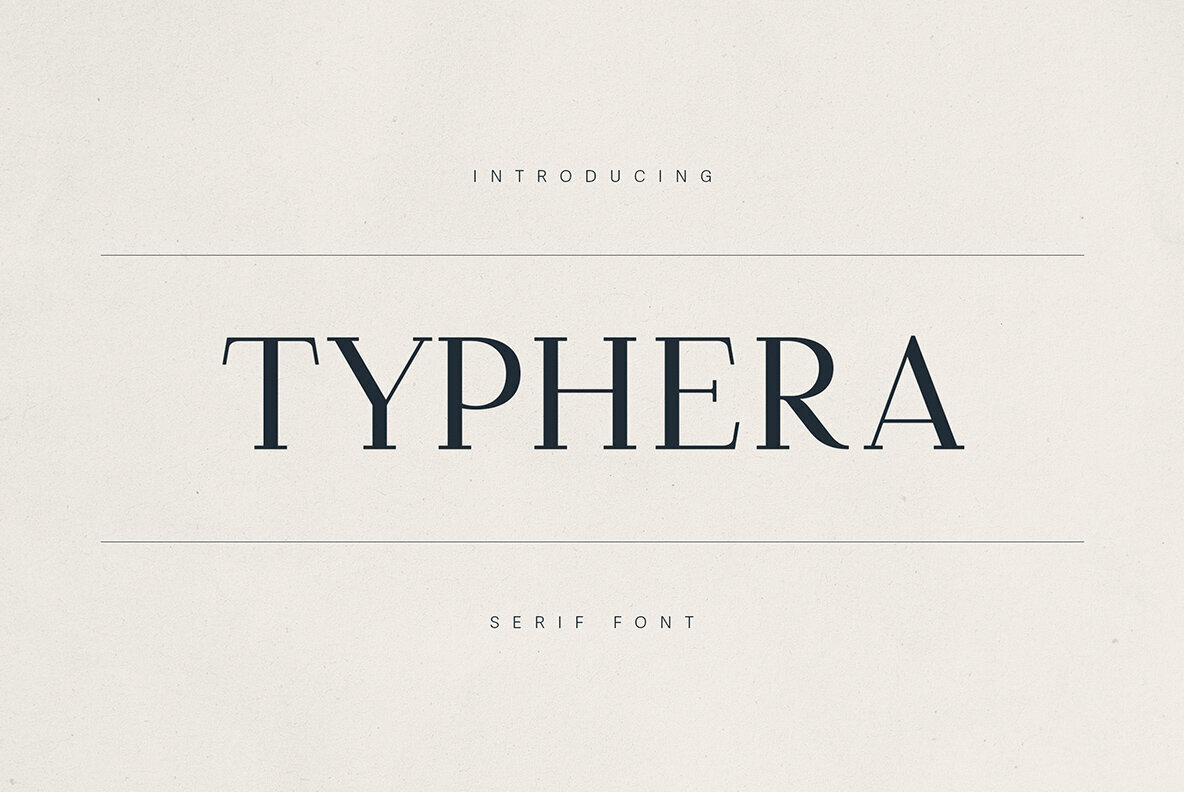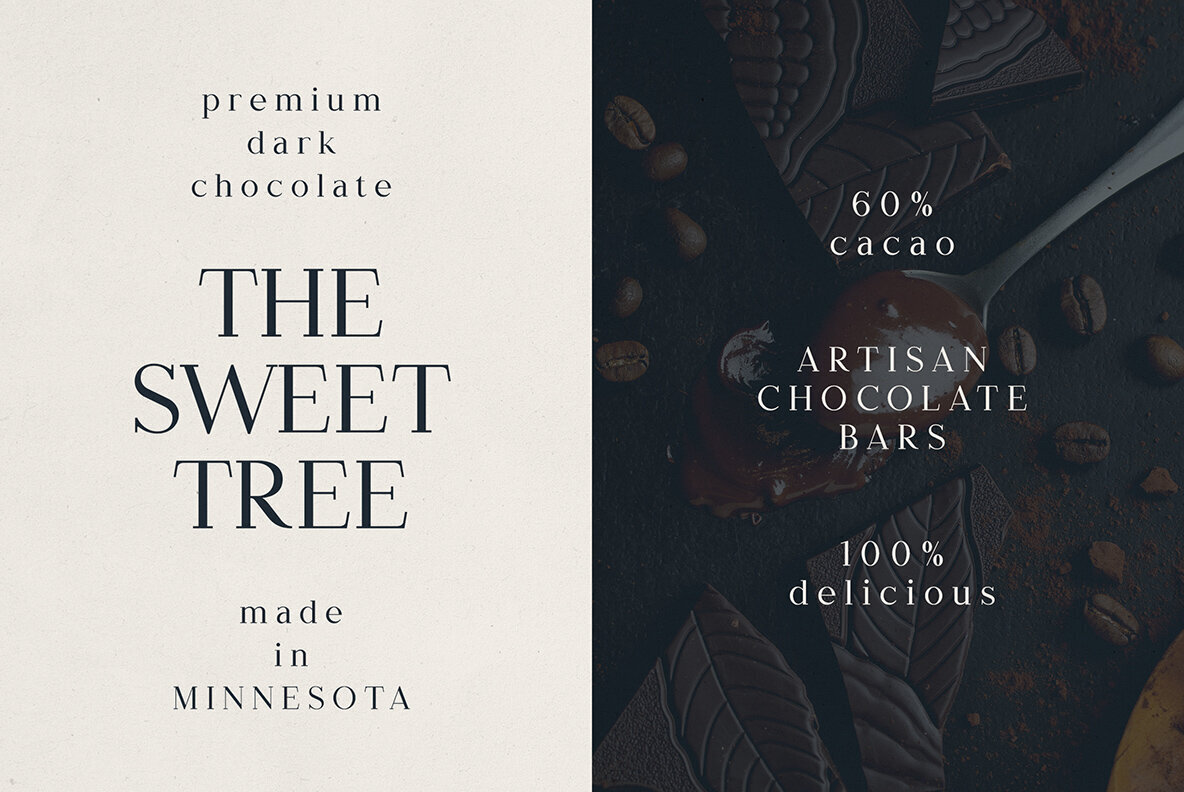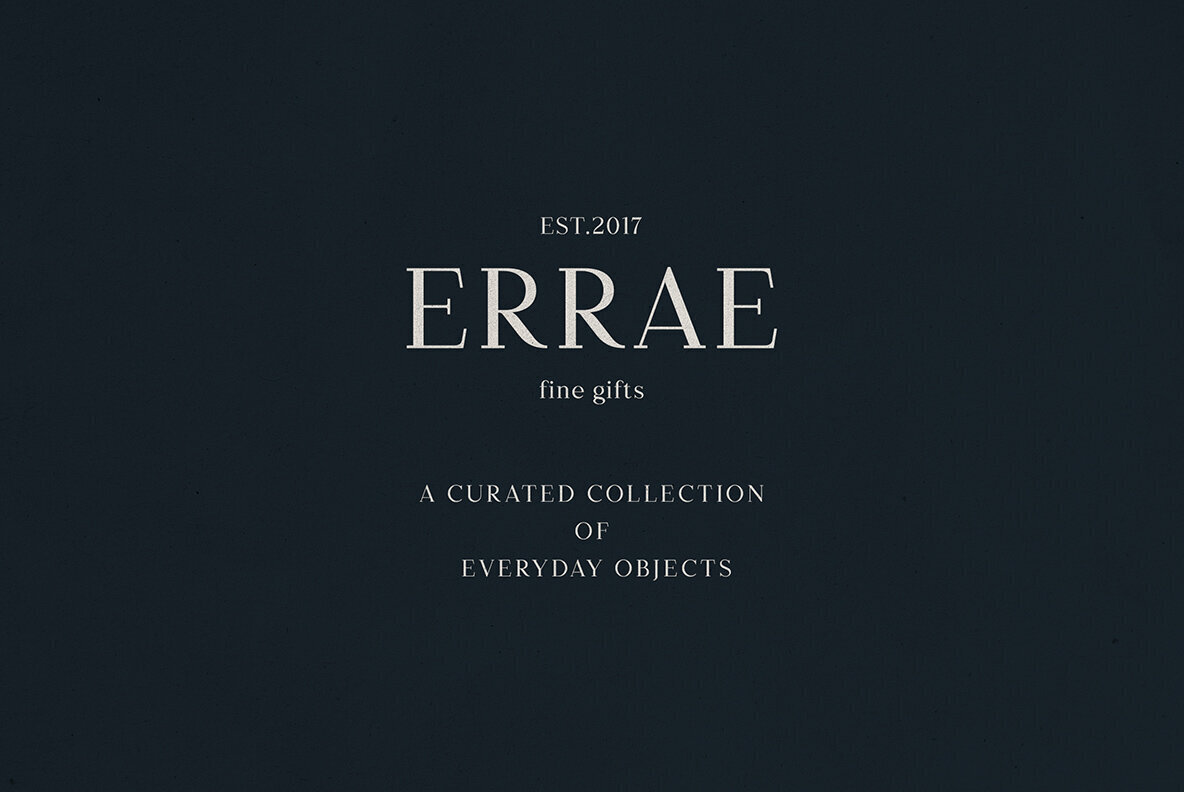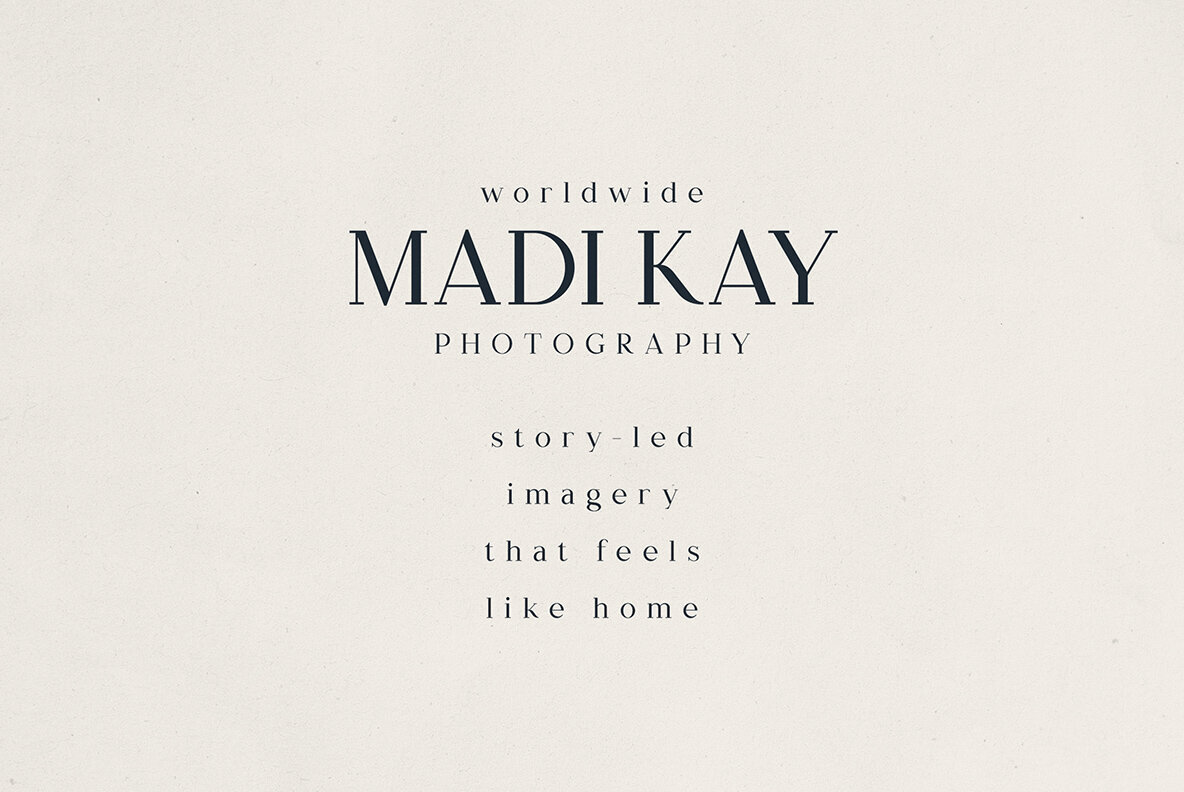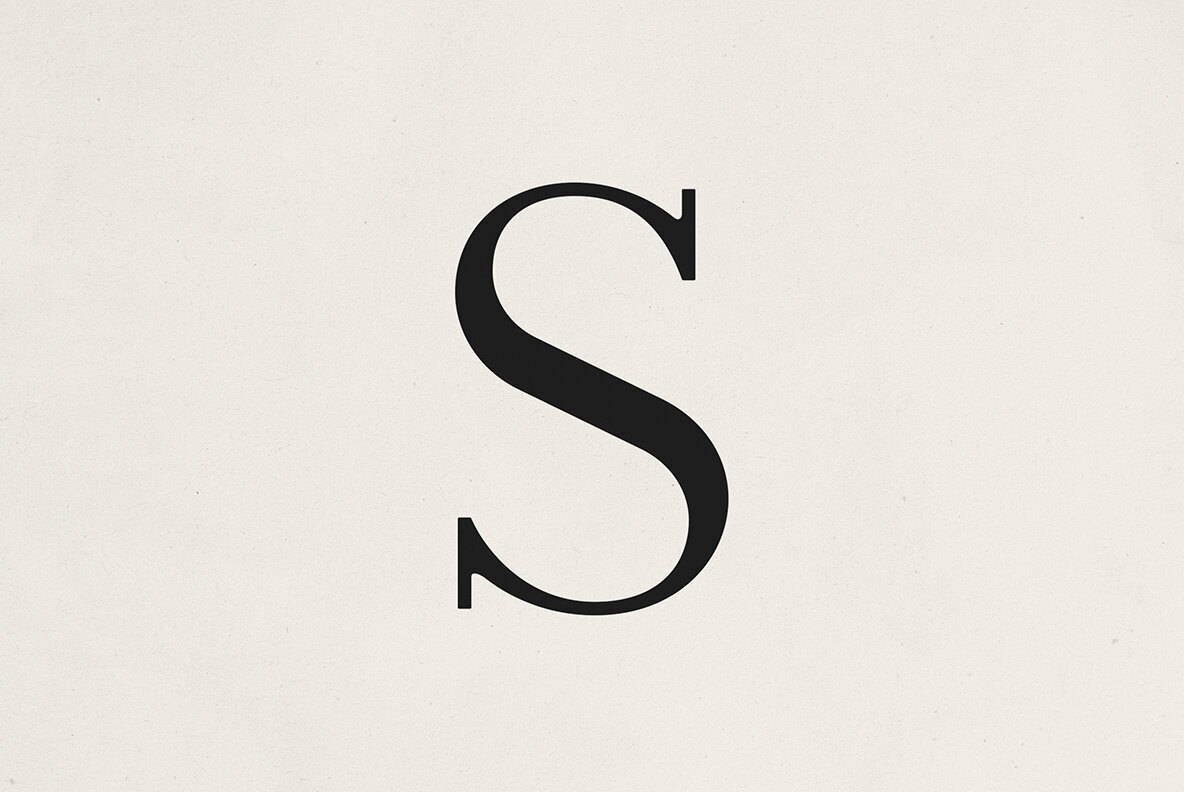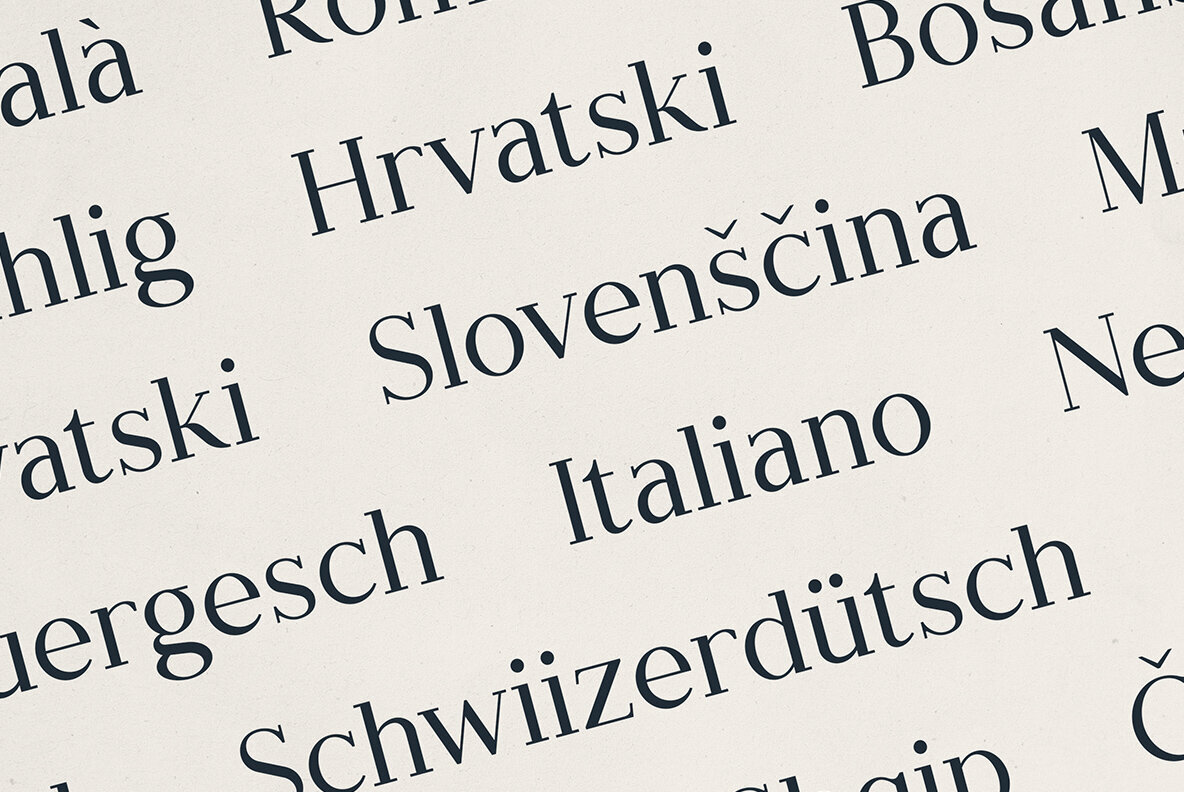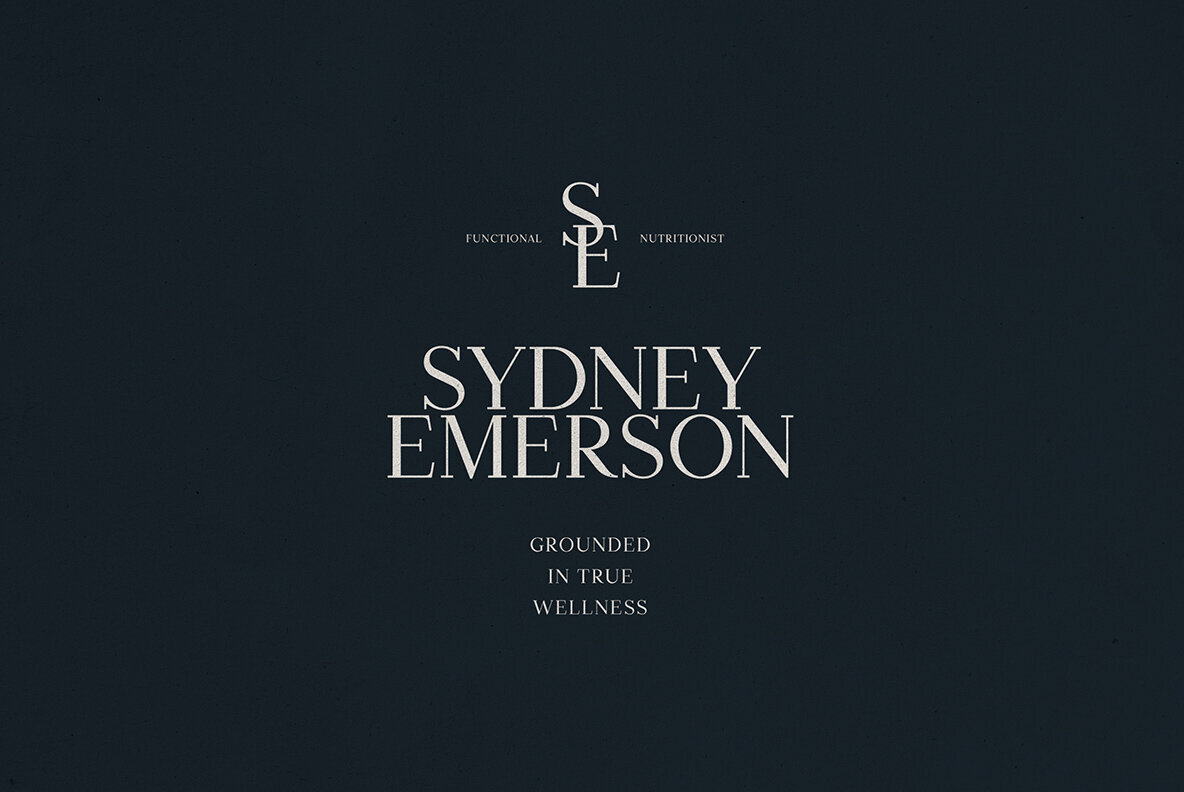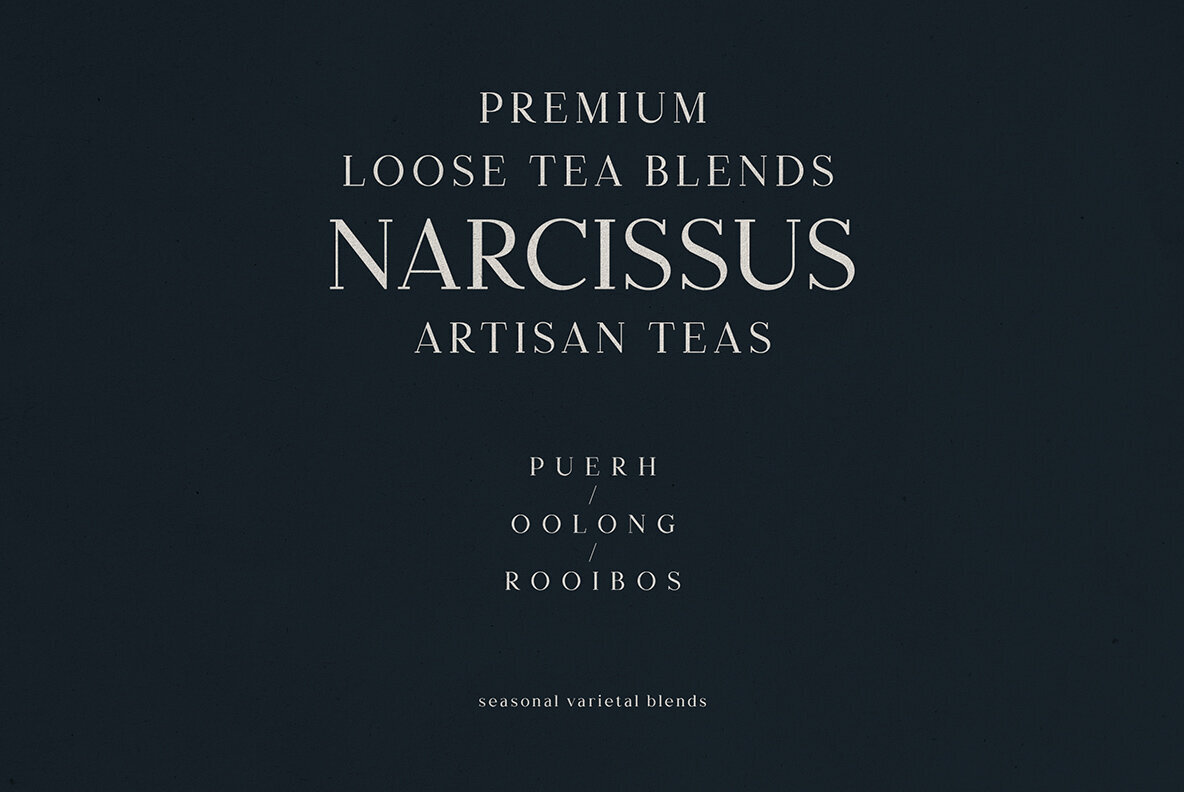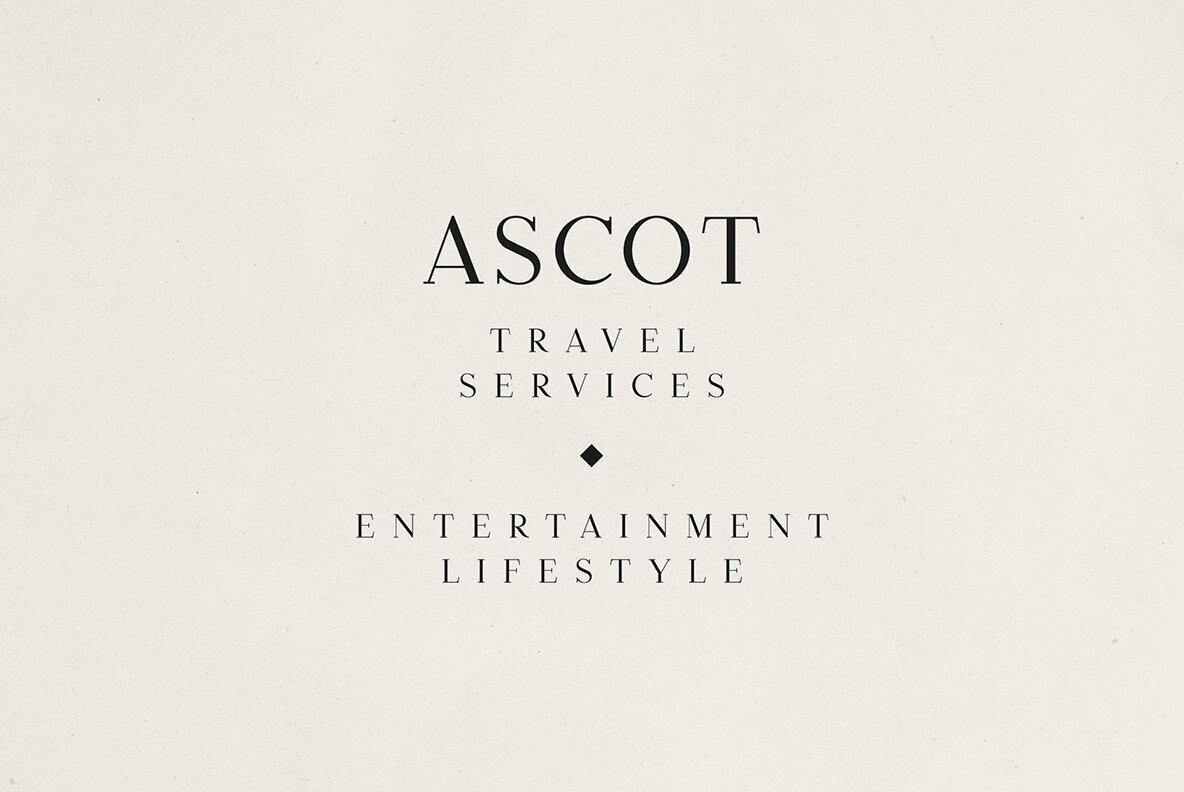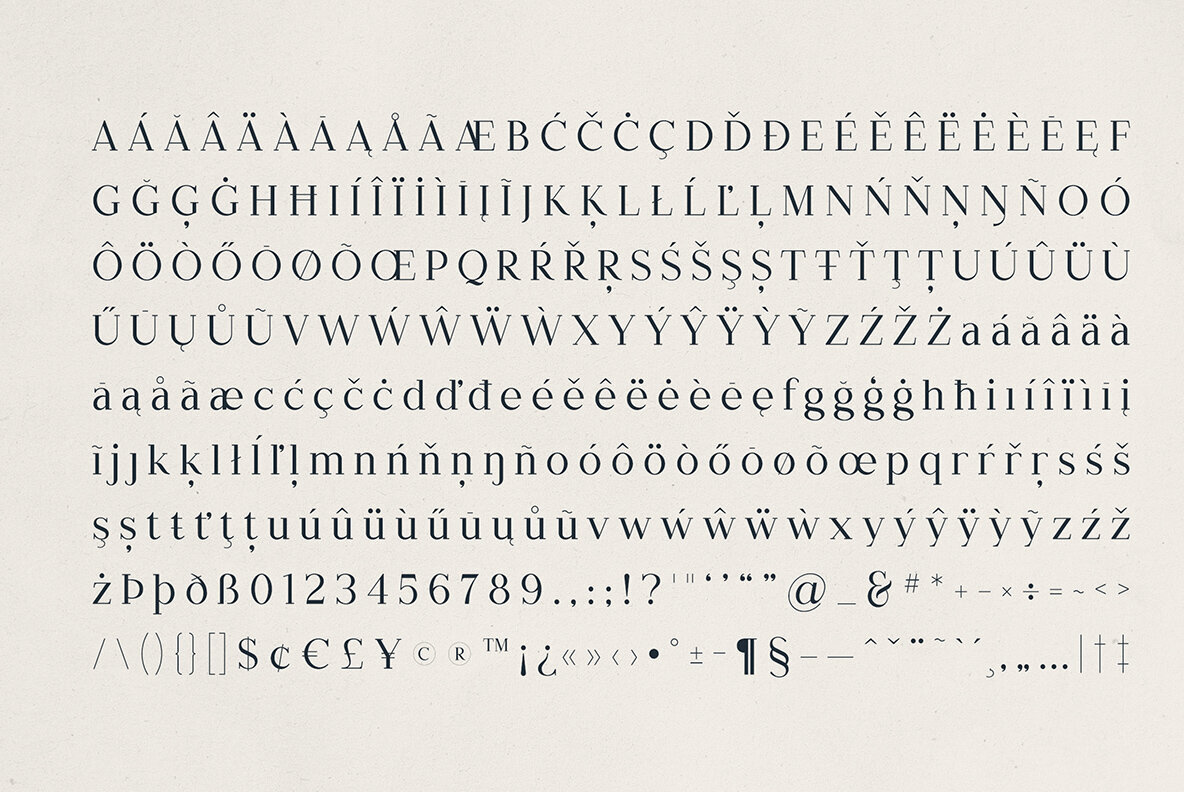
Typhera Font
Typhera
Meet Typhera, the sophisticated serif typeface crafted to infuse elegance and clarity into your creative endeavors. With its classic proportions and sharp serifs, Typhera is perfect for premium branding, editorial layouts, packaging, and high-end digital or print projects. Its subtle contrast elevates your design, making it the ideal choice for global communication efforts. Enhance your typography with Typhera, where heritage harmonizes with modern aesthetics, providing a touch of class and confidence to every project.Typhera: Elegant Serif Font for Timeless Branding